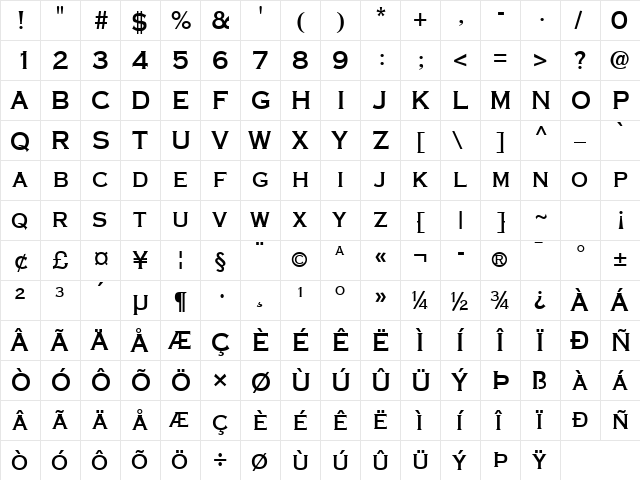
Metalcut Bold
Design Context for Metalcut Typeface
Metalcut offers clean, dependable letterforms without strong stylistic allegiance, making it a practical choice for designers who need flexibility. The heavy weight commands attention and anchors typographic hierarchies.